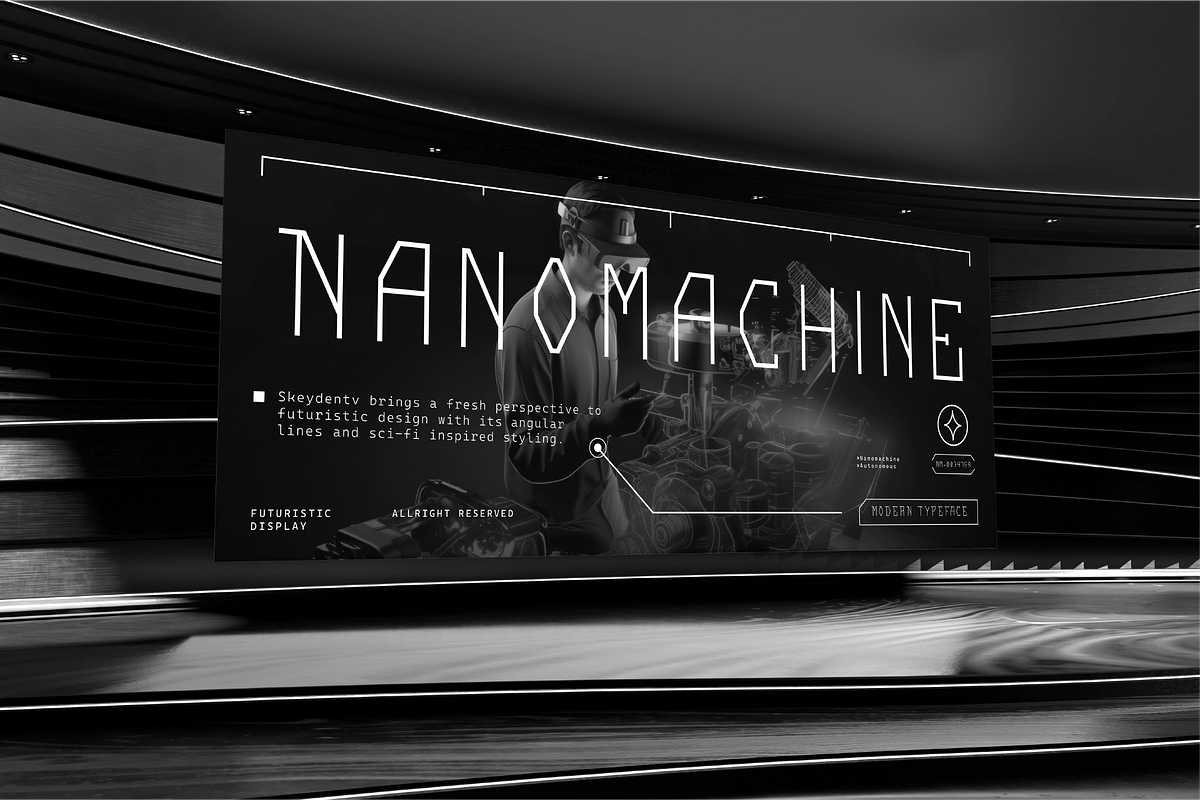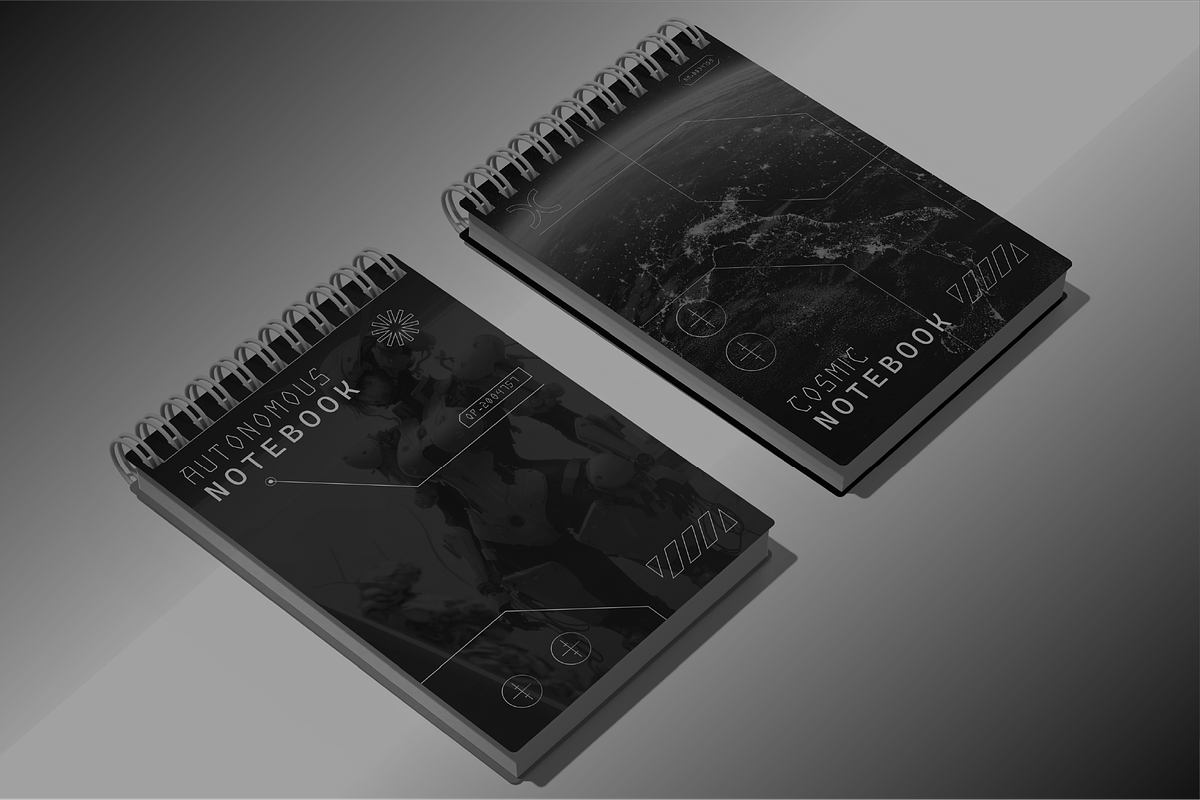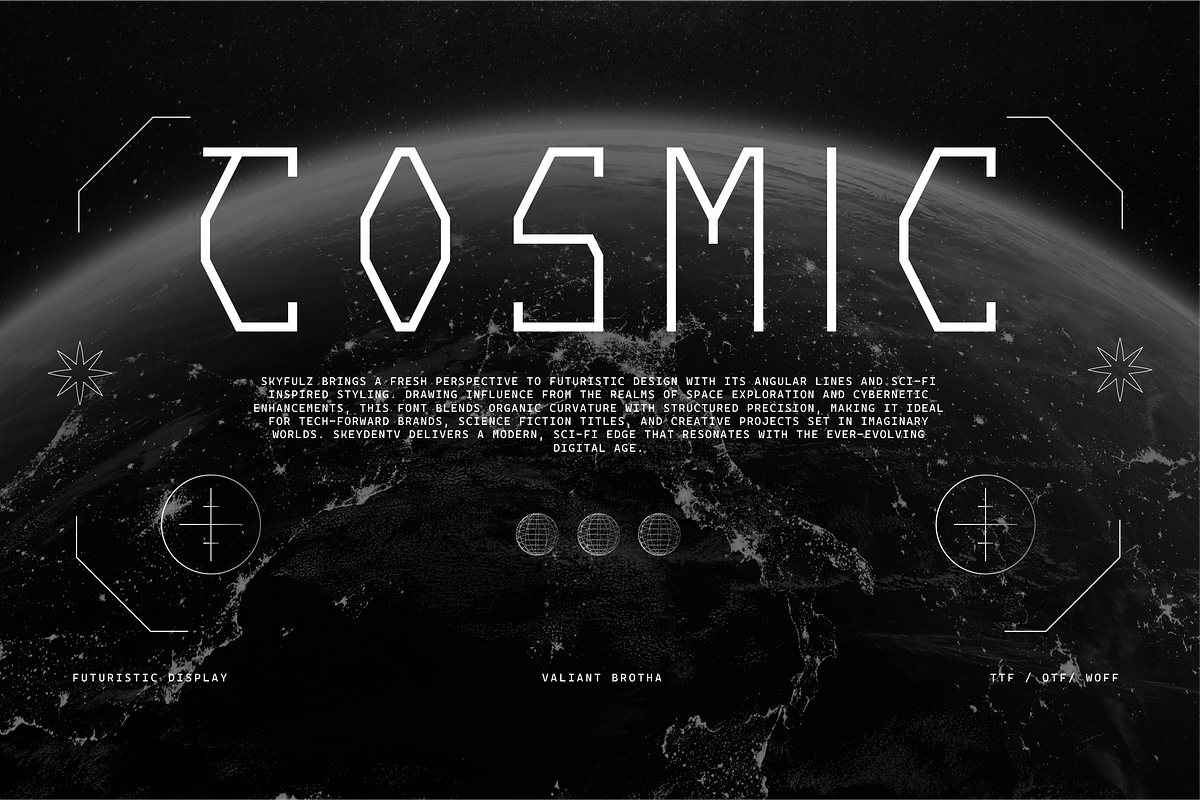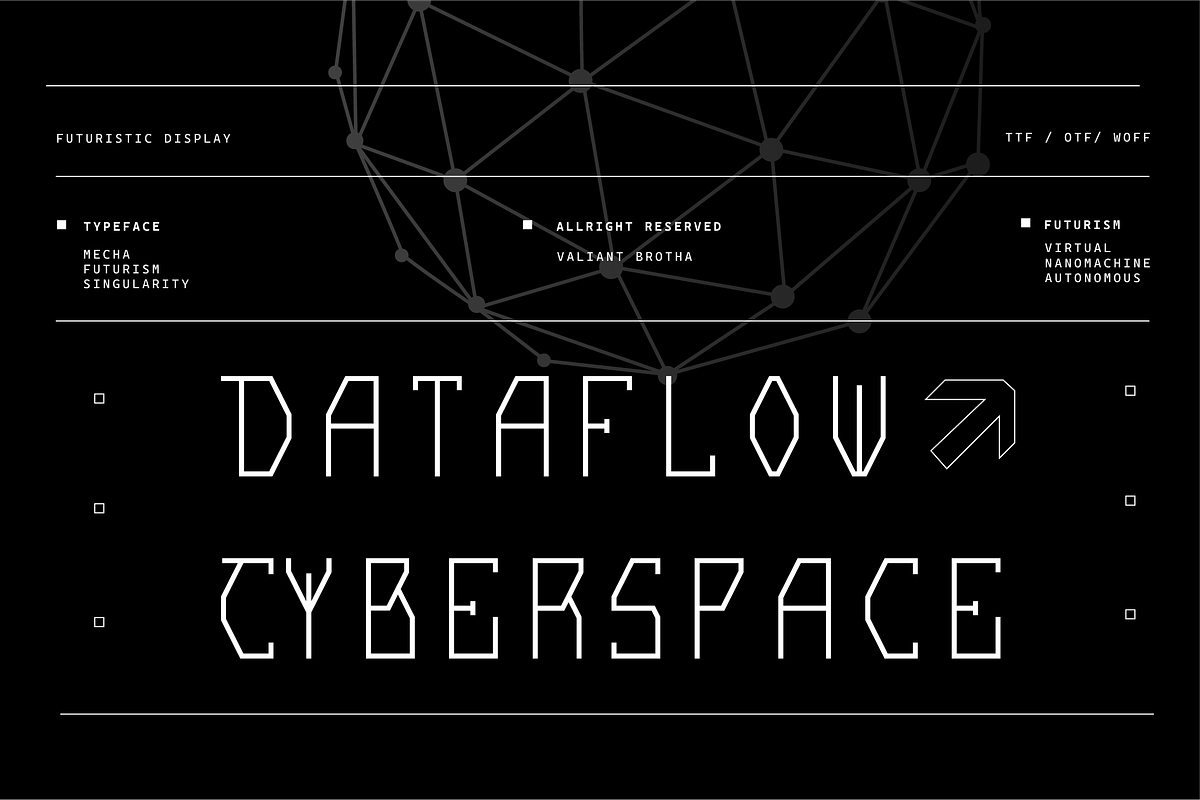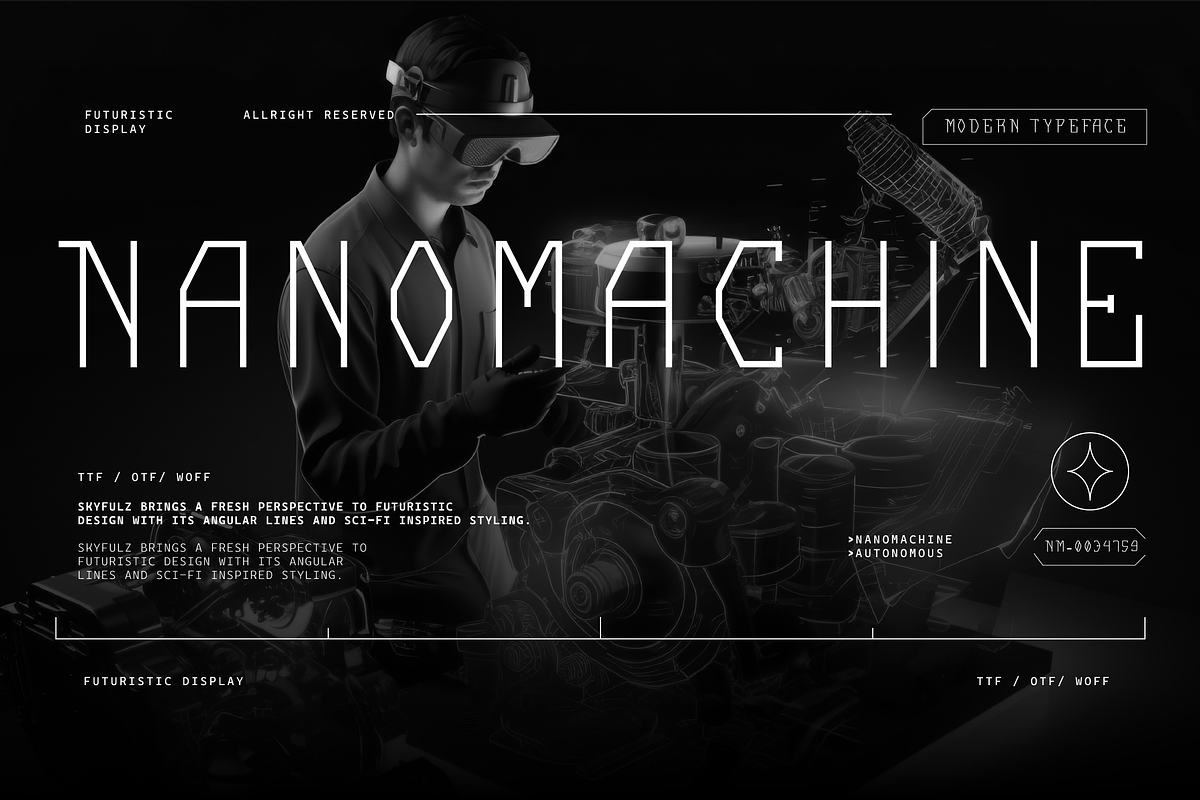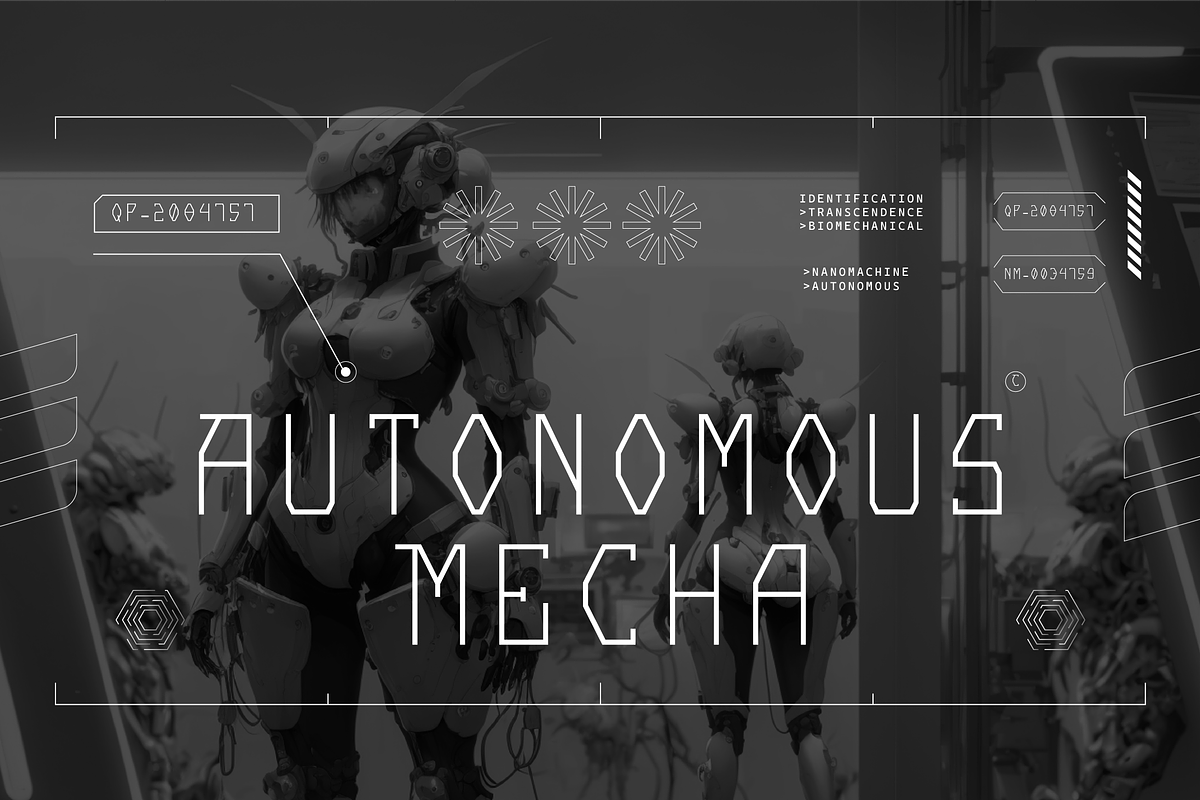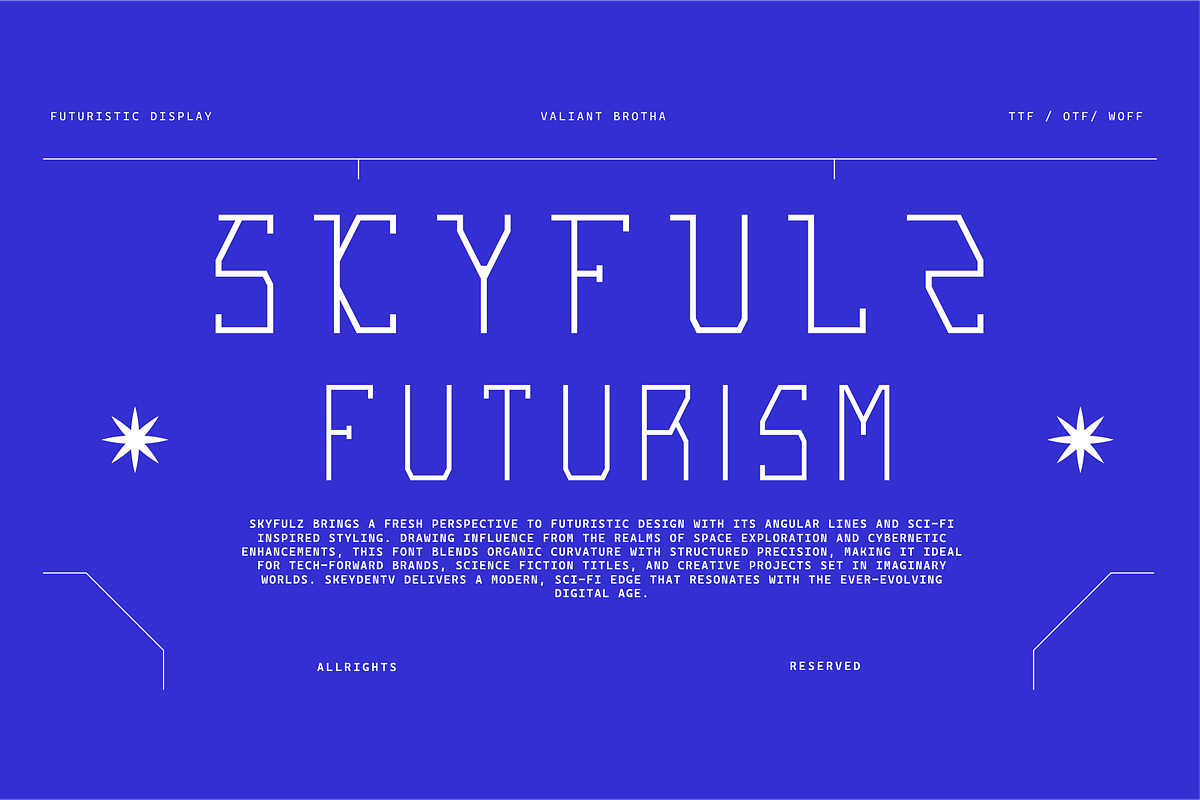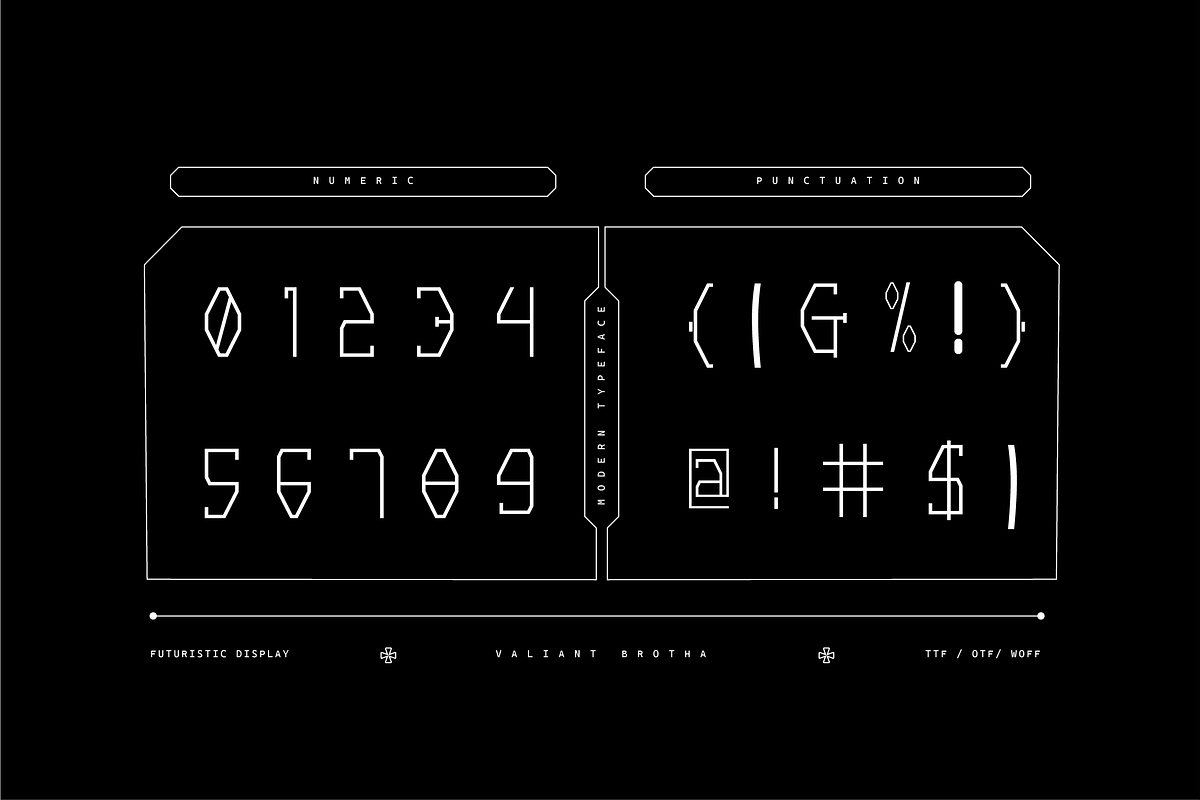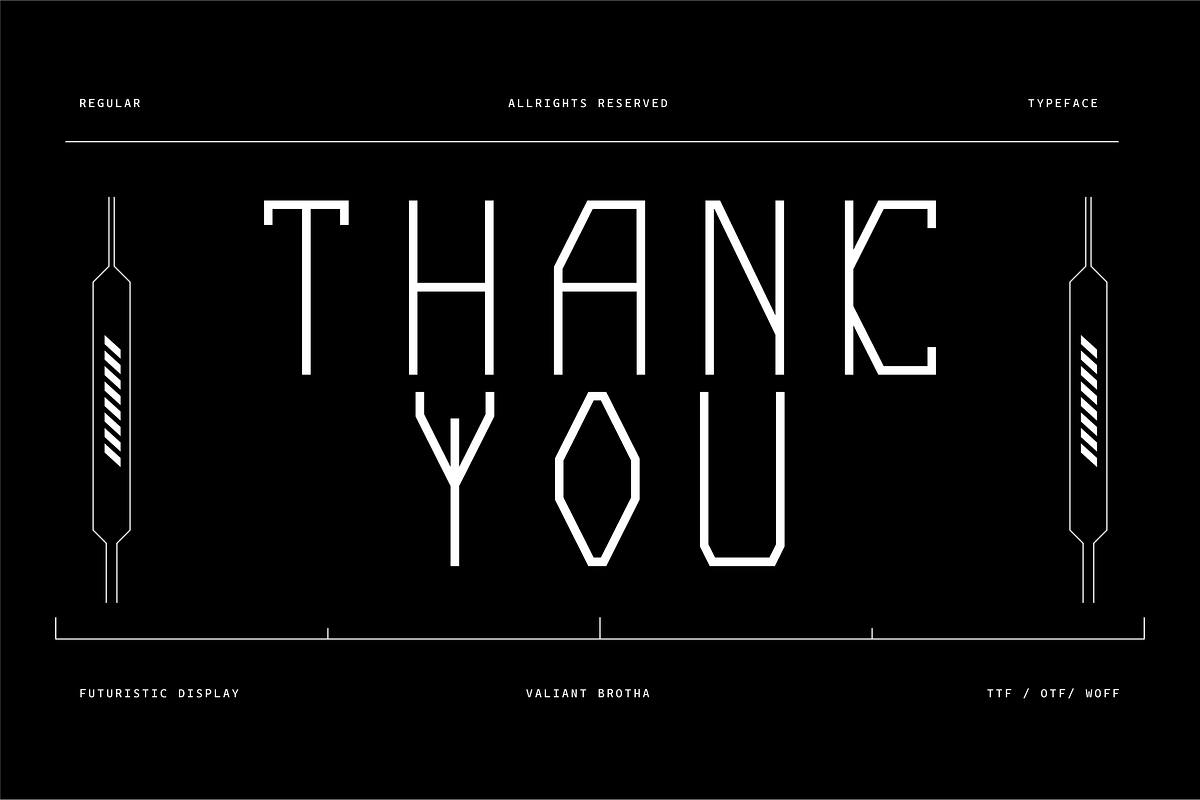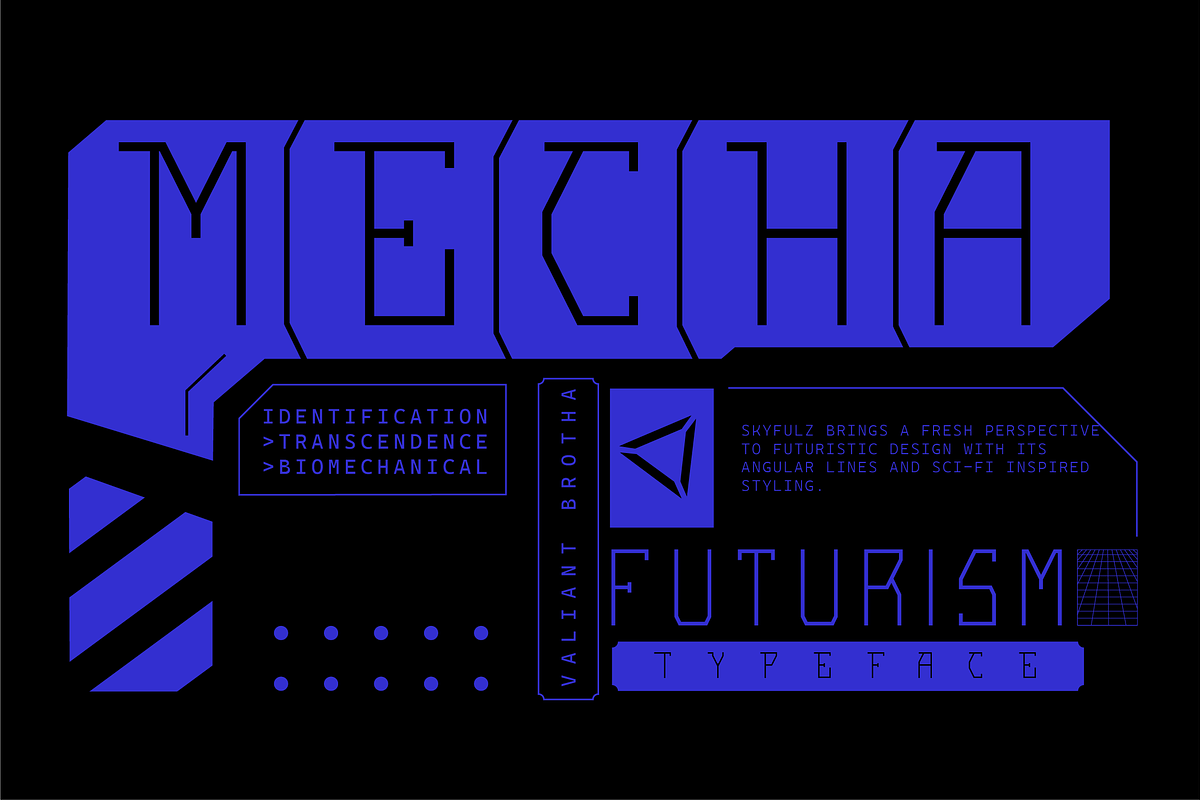
VB Skyfulz - Futuristic Display Font
SkyFulz Font is a sleek, elegant typeface that blends modern sophistication with a touch of airy openness. Its clean lines and balanced proportions evoke a sense of freedom and creativity.